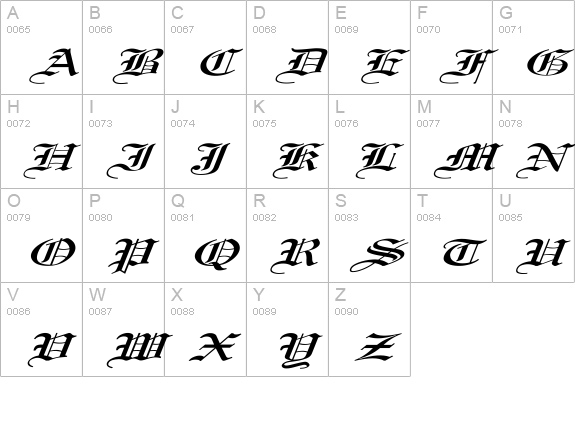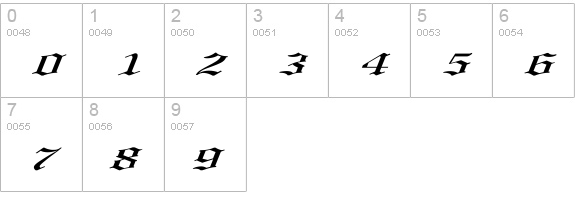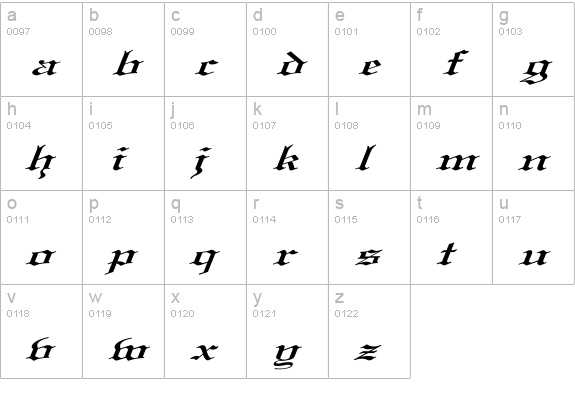
Old English Ex Italic is a distinctive, italic variant in the Old typeface family \xE2\x80\x94 well suited to design and typography projects.
Old English Ex Italic font is a classic and elegant typeface that brings a touch of historical charm to any design project. With its intricate detailing and graceful curves, this font is perfect for adding a sense of sophistication and tradition to your work. The italic style of this font adds a unique flair and a sense of movement, making it ideal for titles, headlines, and special occasions. Best of all, Old English Ex Italic font is available for free download at FontsMarket.com. Whether you're working on a vintage-inspired poster, a formal invitation, or a creative logo, this font is sure to make a statement and elevate your design to the next level. Don't miss out on the opportunity to enhance your projects with this timeless and versatile typeface. Download Old English Ex Italic font today and let your creativity shine!